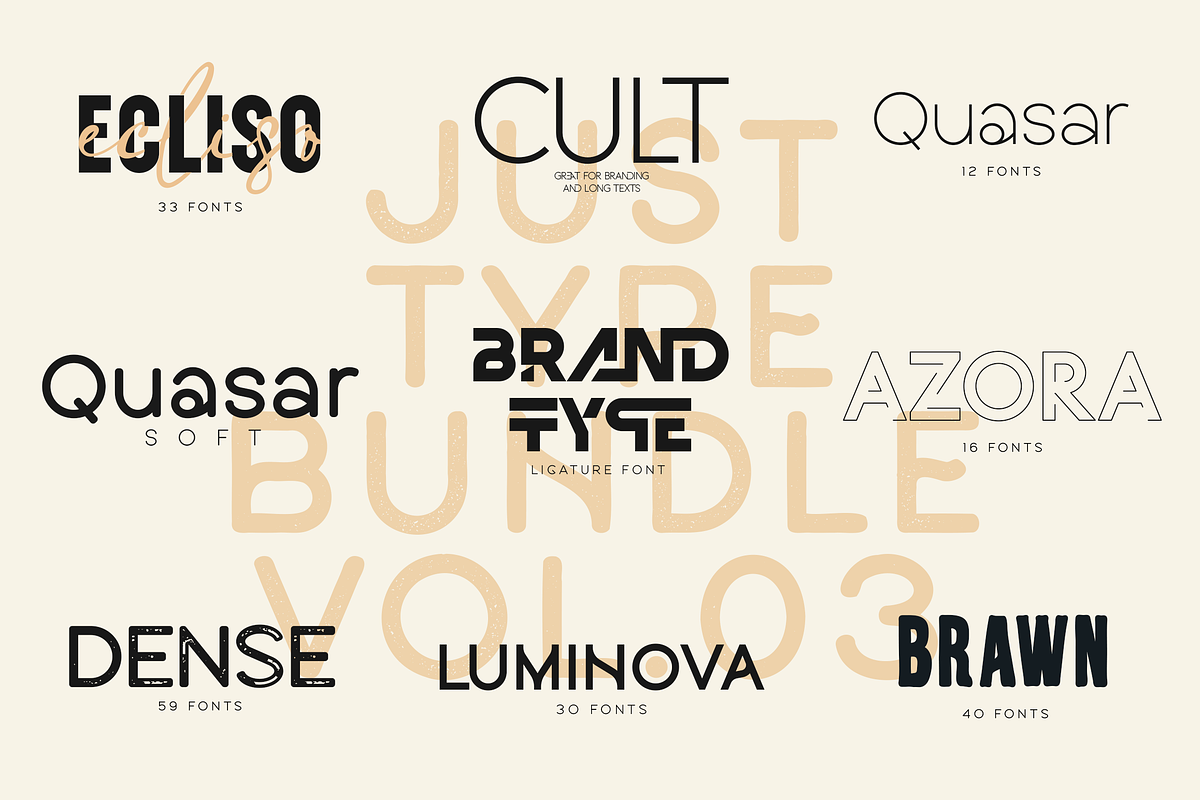
If you're looking to supercharge your font library, Just Type Bundle Vol.03 - 229 fonts Free Download is a must-have collection. This incredible bundle features 229 high-quality fonts ranging from elegant scripts to bold sans-serifs and playful displays—perfect for logos, branding, social media graphics, packaging, and more.
With so many unique styles in one pack, you'll never run out of creative options. Whether you're working on a minimalist design or something more expressive, this bundle has the versatility to match any mood or message.